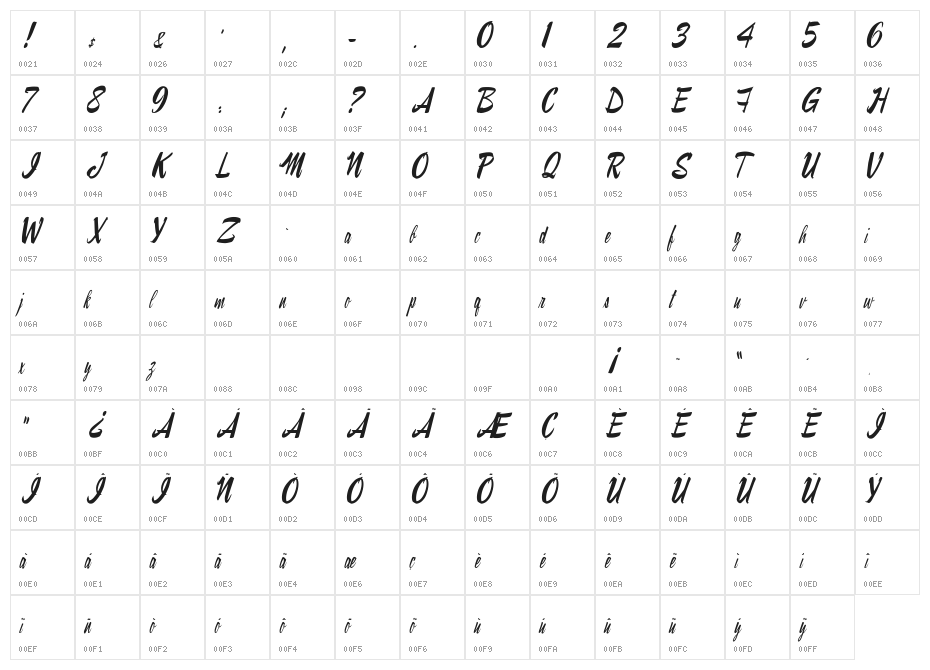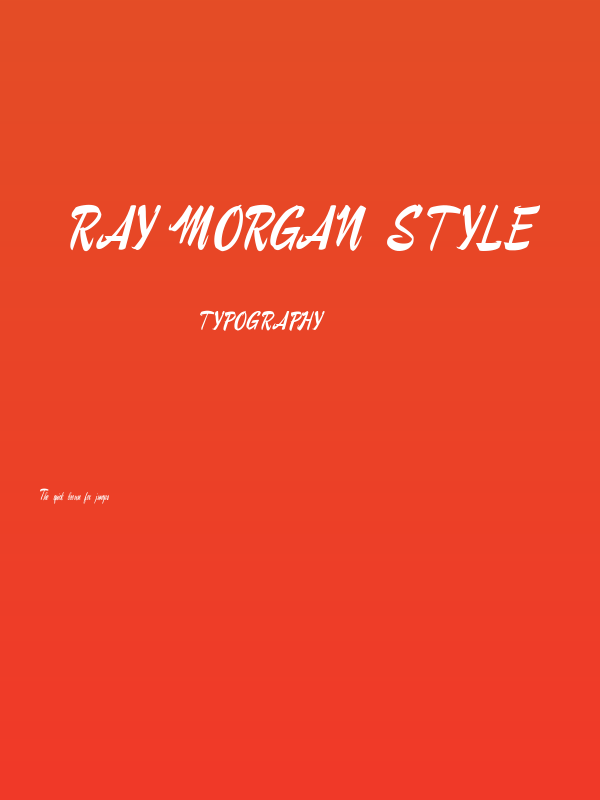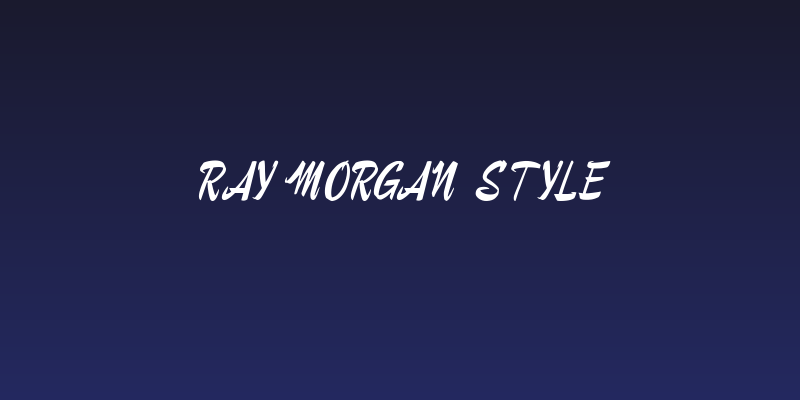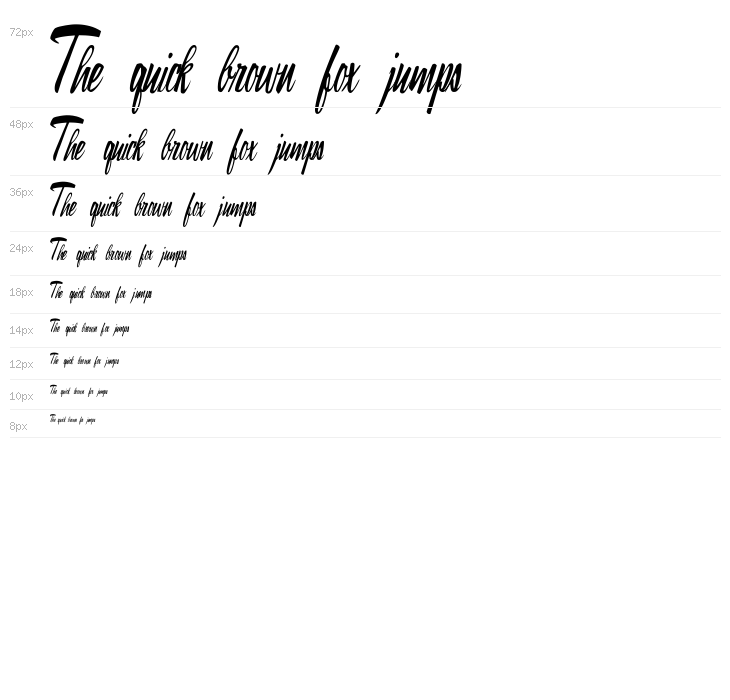
Ray Morgan Style Font
Ray Morgan Style Description
This font features a dynamic and flowing script style, characterized by its elegant and cursive letterforms. The uppercase letters are bold and slightly slanted, giving a sense of movement and sophistication. The lowercase letters maintain a consistent flow, with smooth connections between characters, enhancing its handwritten appearance. Numbers are designed with a similar flair, maintaining the overall aesthetic. Special characters are integrated seamlessly, ensuring versatility in various design contexts. The font's overall appearance is both stylish and legible, making it suitable for a range of creative applications.
| Use Case | Logos, Invitations, Branding |
| Proposed Projects | Ideal for wedding invitations, branding, logo design, and elegant stationery. |